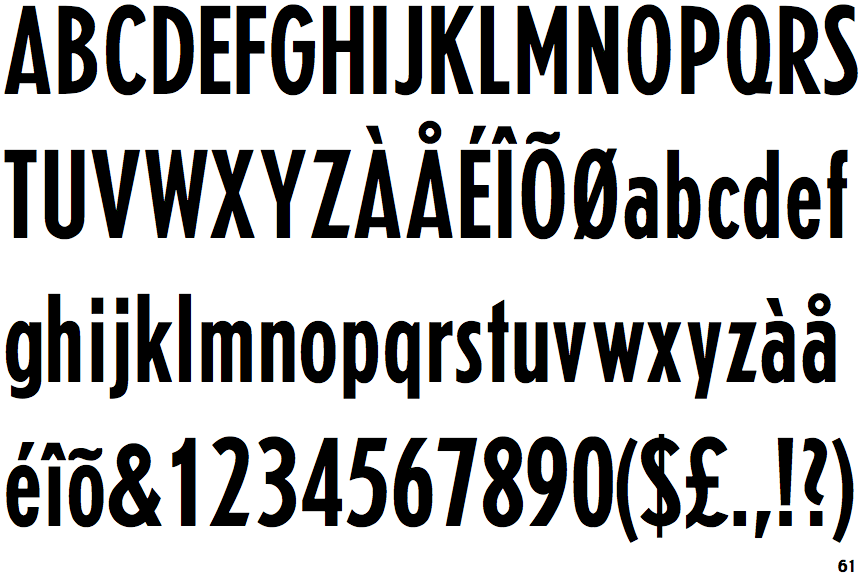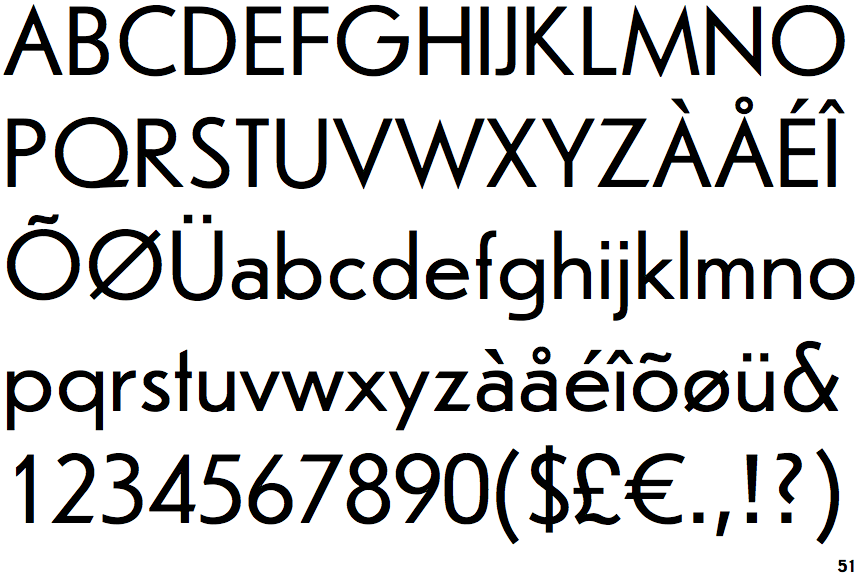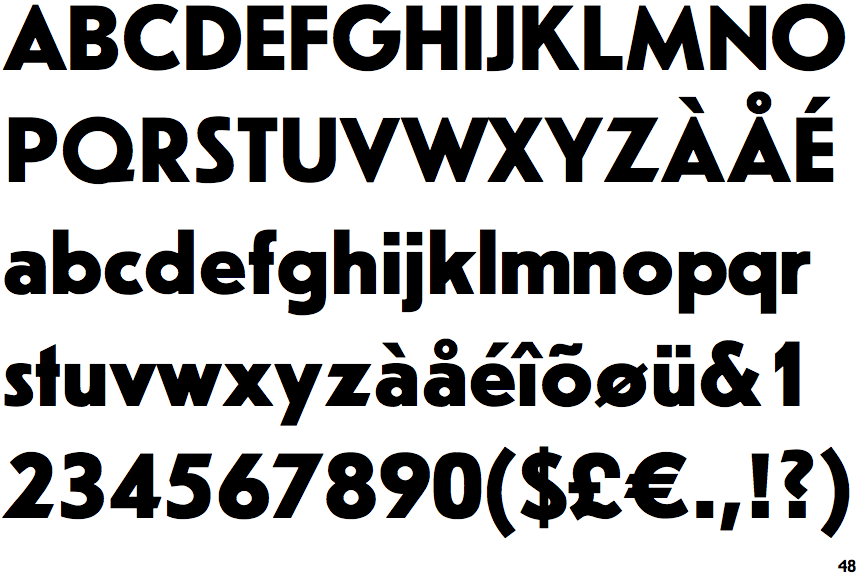
Review Of Erbar Font References
Review Of Erbar Font References. Erbar initialen is licensed under the 1001fonts free for commercial use license (ffc) Erbar at font family was designed by jakob erbar and published by linotype.
Designed and developed by jakob erbar in the year 1929, it has found its application in graphics and. Web erbar or erbar grotesk, designed by jakob erbar (ludwig & mayer) in the early 1920s, is a truly key design from a historical viewpoint. Web erbar, created from 1922 onward by the german designer jakob erbar, was one of the first and most popular of the new geometric sans serifs of the 1920s.
Erbar at font family was designed by jakob erbar and published by linotype. Erbar or erbar grotesk, designed by jakob erbar for ludwig & mayer in the early 1920s, was one of the first and most popular of the. Erbar, designed by jakob erbar for ludwig & mayer in the early 1920s, is truly a key design from a historical viewpoint.
Web What Is The Erbar® Font?
Designed and developed by jakob erbar in the year 1929, it has found its application in graphics and. Web erbar™ is a trademark by bauer types sa. The erbar font was designed by jakob erbar for the ludwig & mayer/neufville foundry in 1930.